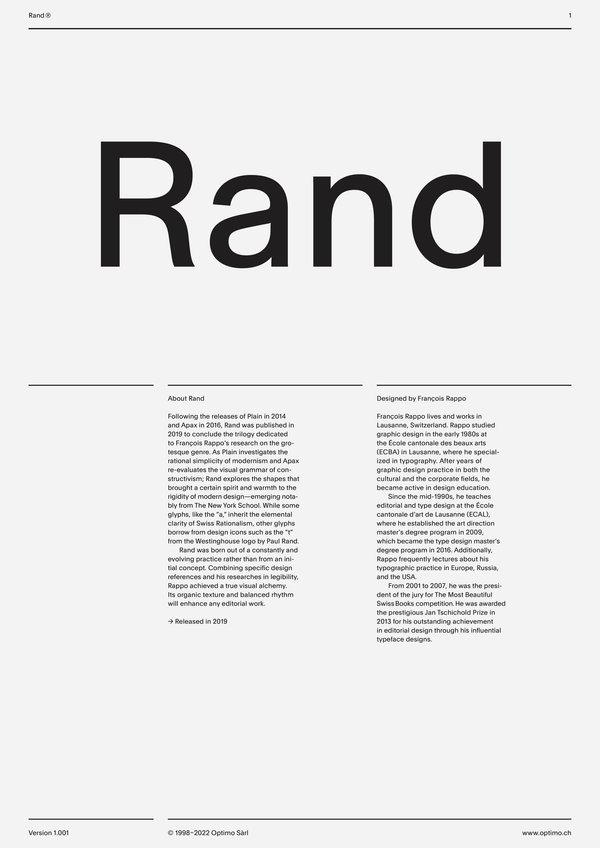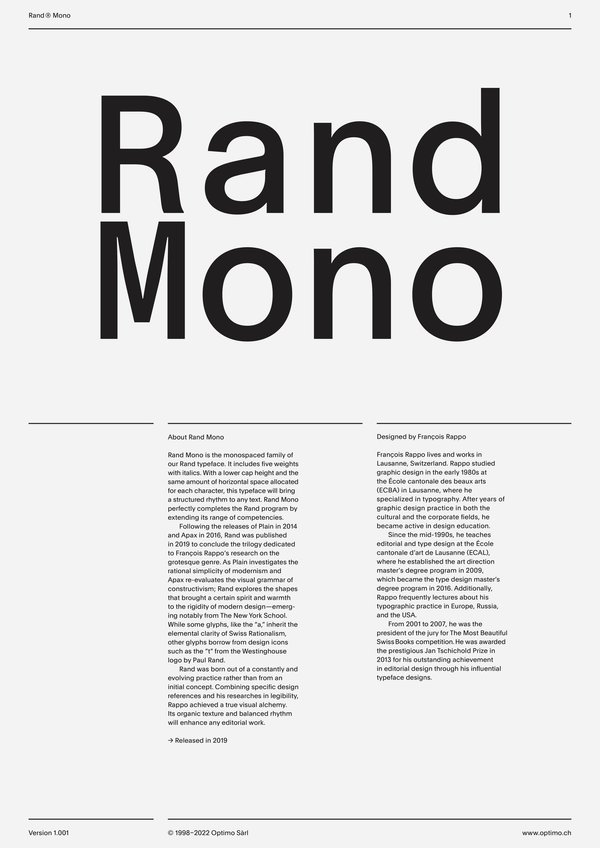
Rand
Rand Mono
Case Sensitive Forms
All Caps [cpsp]
Case Sensitive Forms [case]
This function formats the text in uppercase and adjusts spacing between all capital letters. It also applies the ‘Case Sensitive Forms’ feature which replaces certain characters with alternates that are better suited for all capital text, especially related to punctuation.
Tabular Lining Figures
Tabular Lining Figures [tnum–lnum]
Based on the proportions of the capitals, lining figures have an invariable height. With the combination of the tabular spacing format, the width of each numeral is uniformized. This feature is useful when numerals need to all lined up. It facilitates the reading of numbers set within columns or tables. As some applications don’t have access to this feature, proportional figures are set as the default choice.
Proportional Oldstyle Figures
Proportional Oldstyle Figures [pnum–onum]
Based on the design of the lowercase, oldstyle figures have varying ascenders and descenders. Like most of the letters, each number has an appropriate width based on its shape. The combination of oldstyle figures with proportional setting generate numerals perfectly adapted for text.
Tabular Oldstyle Figures
Tabular Oldstyle Figures [tnum–onum]
Based on the design of the lowercase, oldstyle figures have varying ascenders and descenders. With the combination of the tabular spacing format, the width of each numeral is uniformized. This feature is useful when numerals need to all lined up. It facilitates the reading of numbers set within columns or tables.
Fractions
With this feature, any numbers separated by a slash will automatically turn into a fraction. To fit in fraction configuration, numerals have been designed smaller and their weights have been adjusted to suit the typeface.
Lowercase math symbols
Stylistic Set 6 [ss06]
This feature activates alternate lowercase positioning of mathematical symbols.
This feature replaces any letter following a numeral with its matching superior letters. French language uses the ordinal indicators such as ‘er’ for 1er premier, while Spanish, Portuguese and Italian require the feminine and masculine ordinals ‘a,’ ‘o’ for 1º, 1ª. Ordinals are designed to match the weight of the typeface.
Slashed Zero
Slashed Zero [zero]
Originally created to avoid the confusion between the ‘0’ and the ‘O’, this feature substitutes all zeros in a selected text by a slashed form of the zero.
Multiply sign
Stylistic Set 20 [ss20]
This feature substitutes the letter “x” into the multiplication sign.
Numerators [numr]
This feature substitutes glyphs with their matching smaller alternates. The numerators are the same glyphs that are used to create fractions, their vertical position remains within the capital letters height. These glyphs are reduced in size and designed slightly heavier to keep them consistent with the rest of the font.
This feature substitutes glyphs with their matching smaller alternates and low position glyphs. The denominators are the same glyphs that are used to create fractions, their vertical position remains within the base line. These glyphs are reduced in size and designed slightly heavier to keep them consistent with the rest of the font.
Superscript/Superiors
This feature substitutes glyphs with their matching smaller alternates which are set slightly above the height of the capital letters. These glyphs are reduced in size and designed slightly heavier to keep them consistent with the rest of the font.
Subscript/Inferiors
Subscript / Inferiors [subs]
This feature substitutes glyphs with their matching smaller alternates which are set slightly below the baseline. These glyphs are reduced in size and designed slightly heavier to keep them consistent with the rest of the font.
Rand was born out of a constantly and evolving practice rather than from an initial concept. Combining specific design references and his researches in legibility, Rappo achieved a true visual alchemy. Its organic texture and balanced rhythm will enhance any editorial work. A monospace program is also offered. With its shortened capitals and well-studied proportions, Rand Mono perfectly completes this new font family by extending its range of competencies.